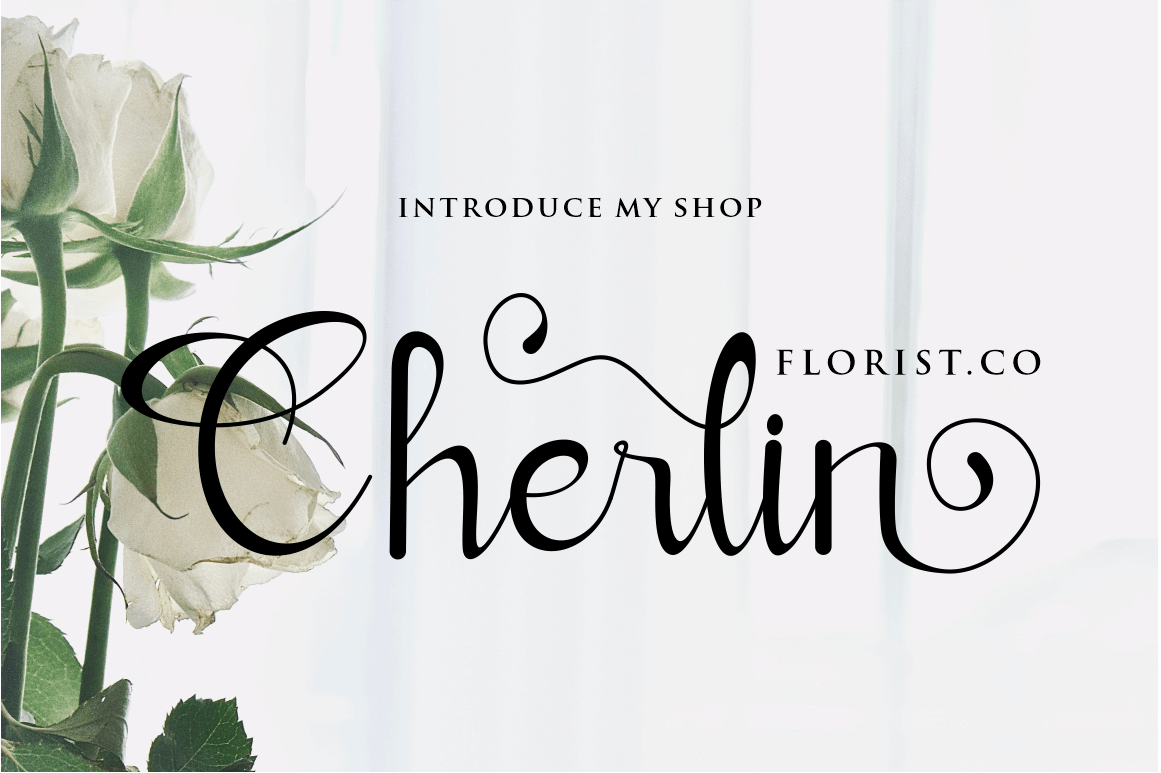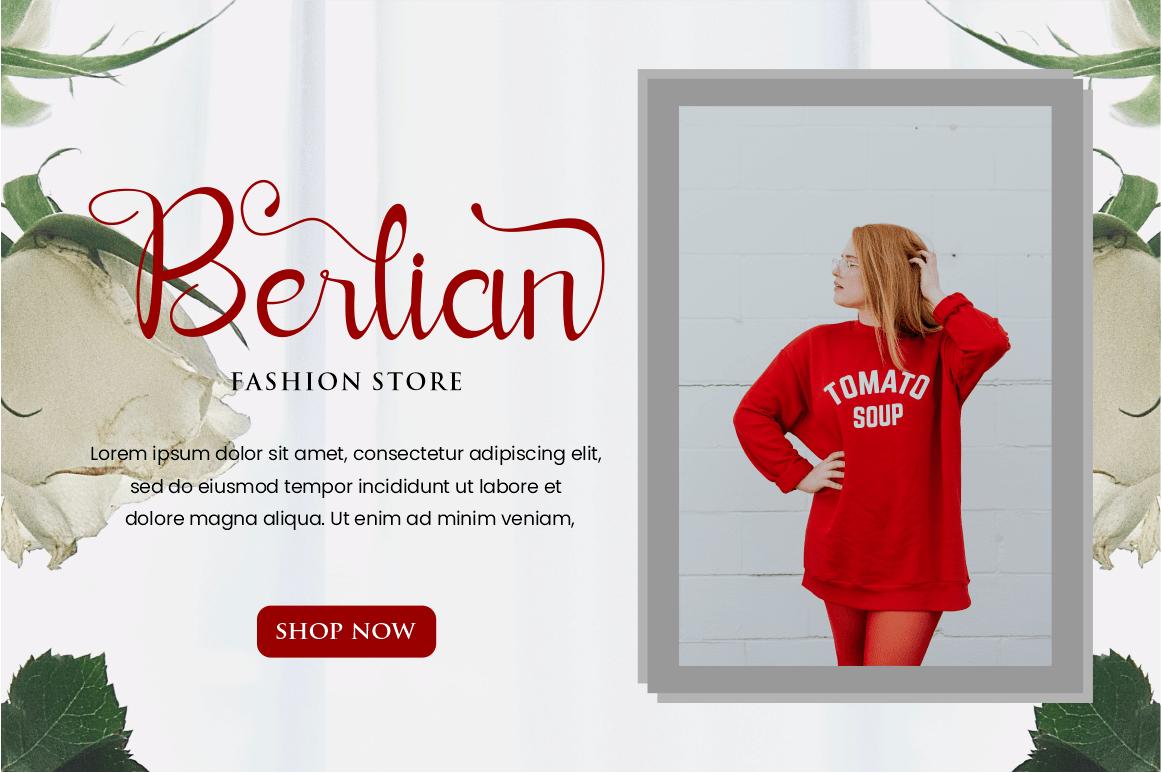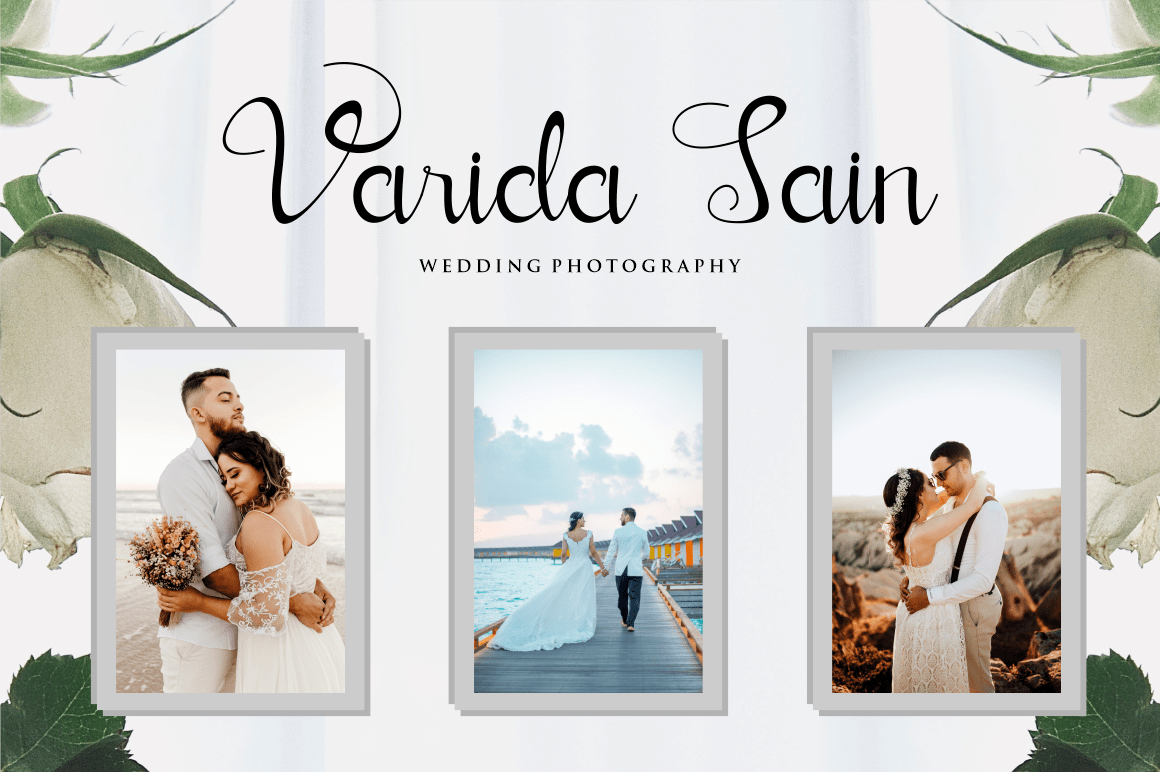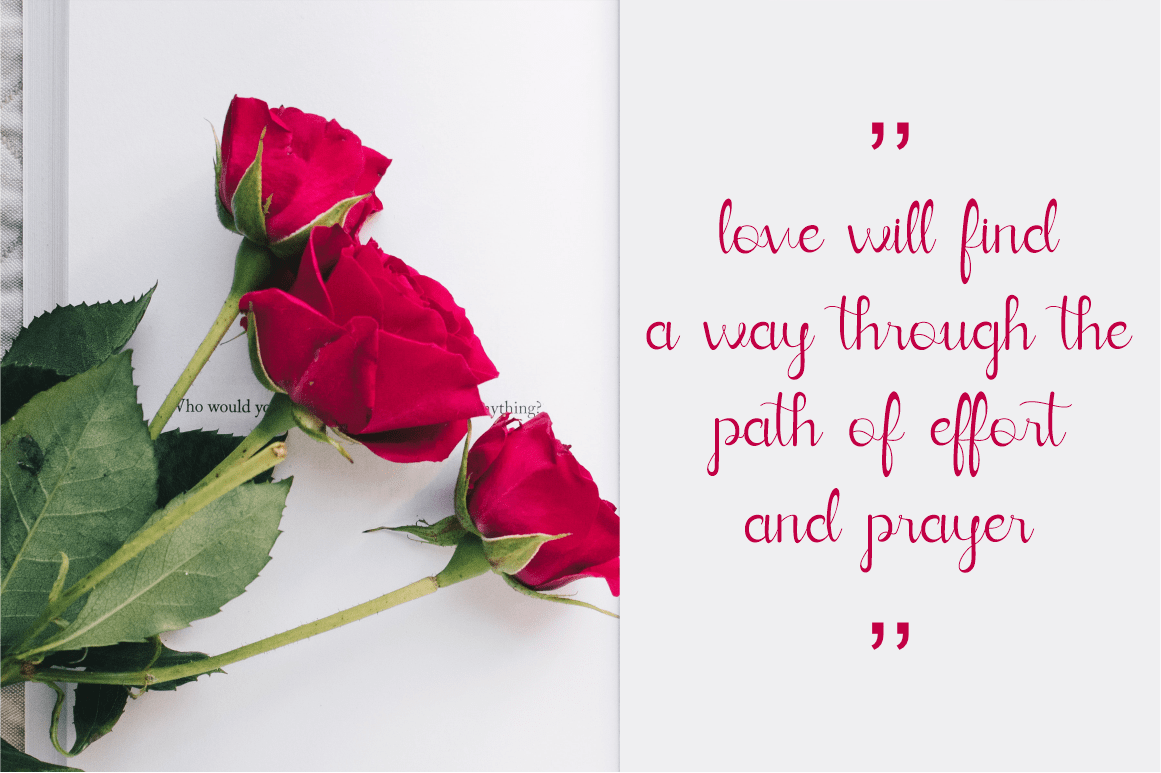
Verllina Font
Verllina Script Font
It’s a elegant calligraphy font. The different letters make this font has its own charm. Fall in love with its incredibly versatile style and use it to create spectacular designs. This font is PUA encoded which means you can access all of the glyphs and swashes with ease!